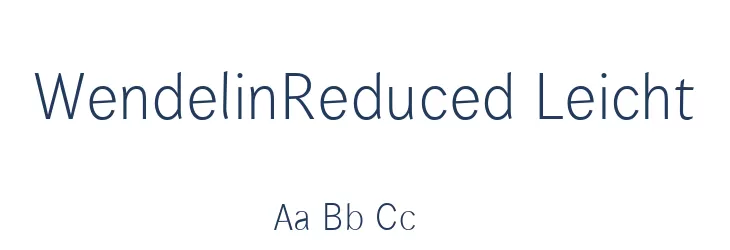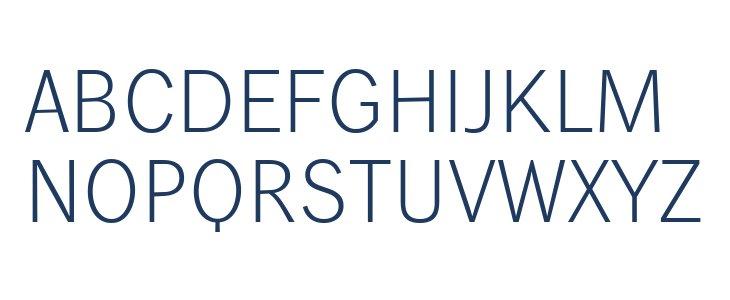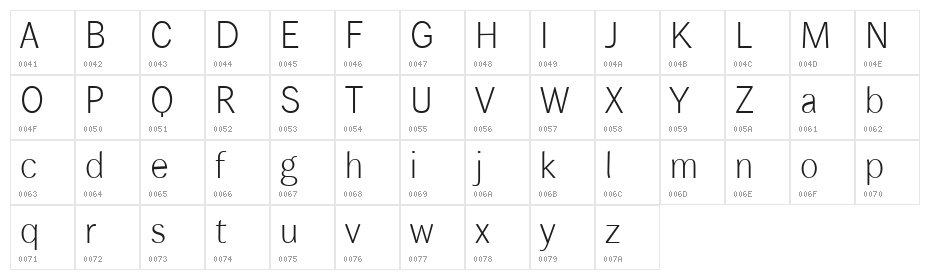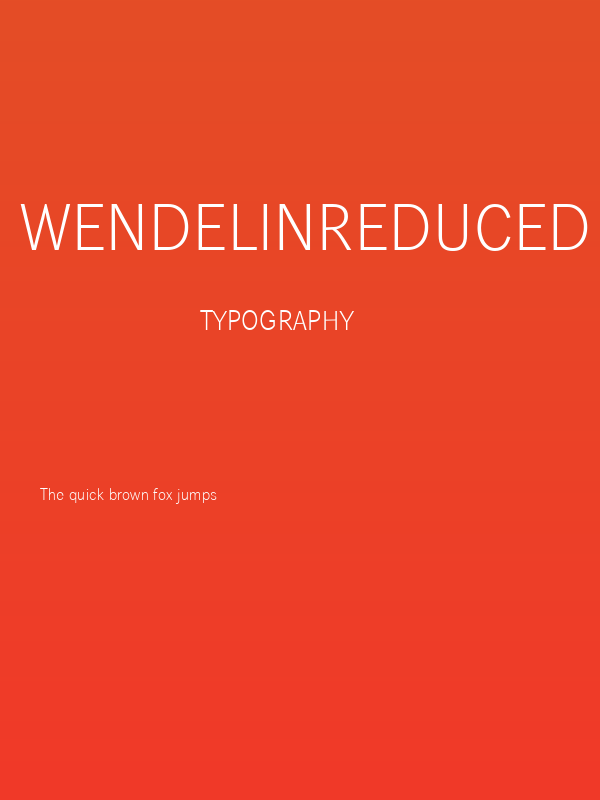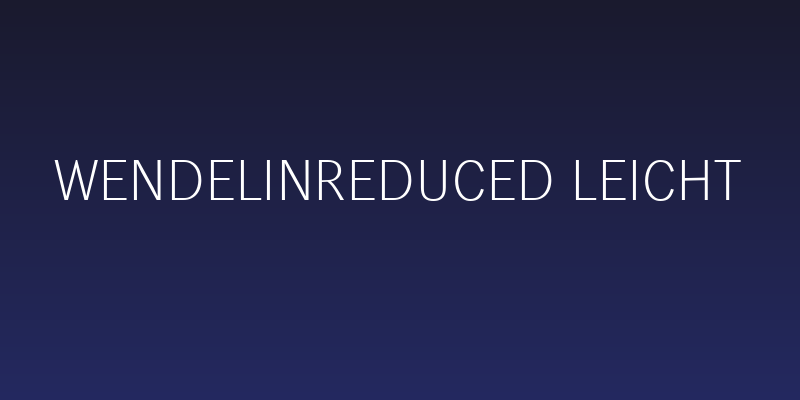
WendelinReduced-Leicht Font
WendelinReduced-Leicht Description
This font features a clean and modern sans-serif design with a focus on readability and simplicity. The characters are evenly spaced, providing a balanced and harmonious appearance. The uppercase letters are bold and assertive, while the lowercase letters maintain a consistent height, enhancing legibility. The numbers are clear and distinct, making them suitable for various applications. Special characters are designed with the same attention to detail, ensuring they blend seamlessly with the rest of the font. The overall style is minimalistic, making it versatile for both digital and print media.
| Proposed Projects | Ideal for branding, web design, corporate materials, and editorial content. |